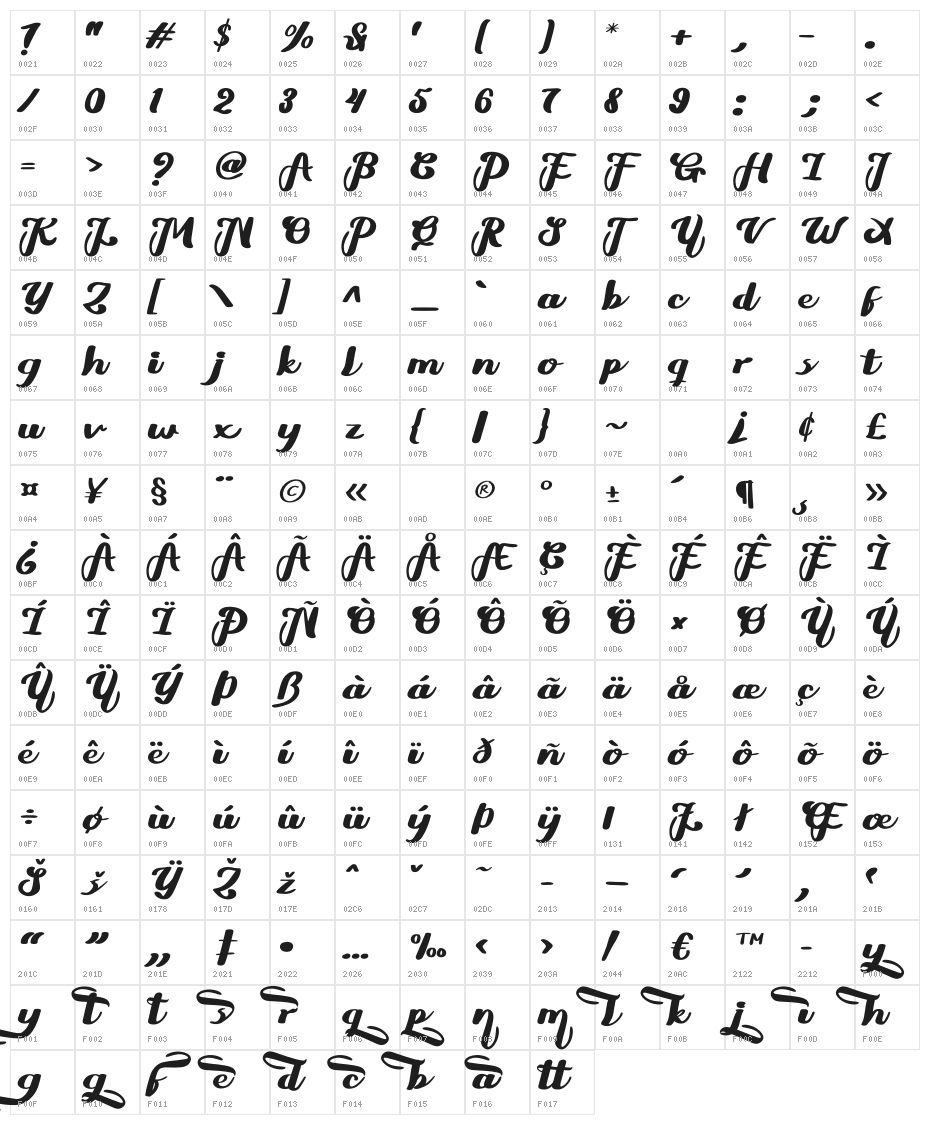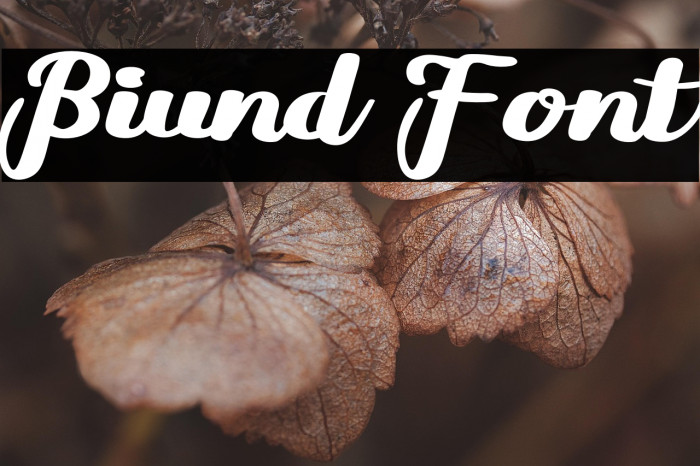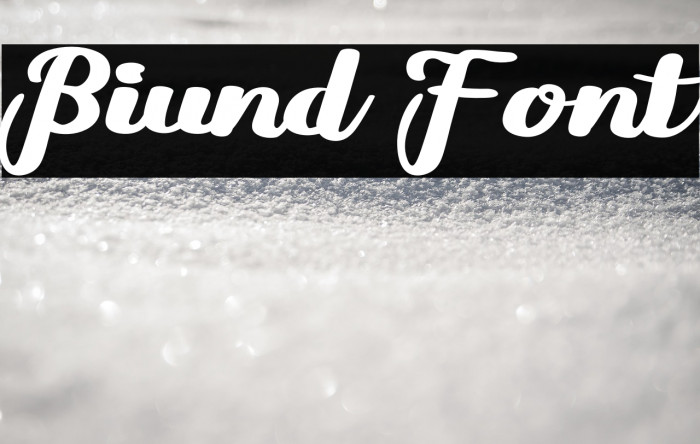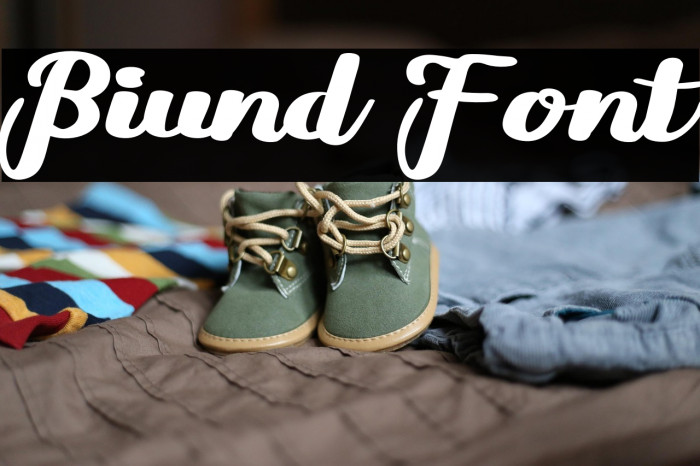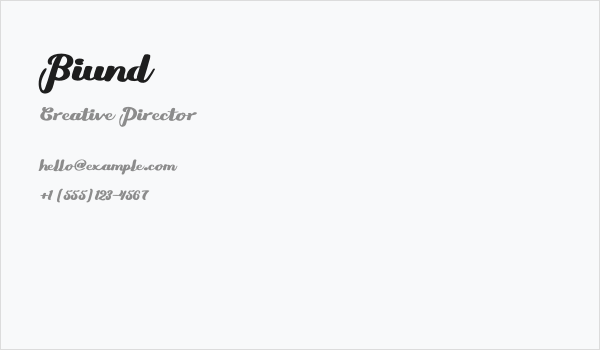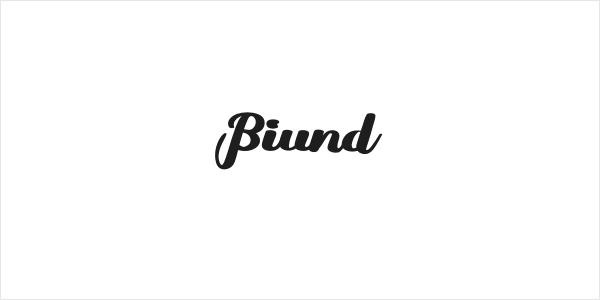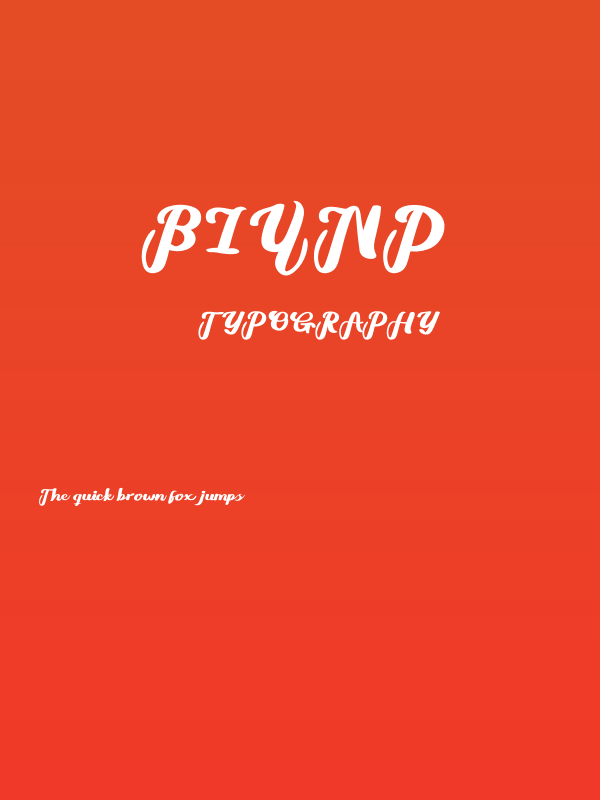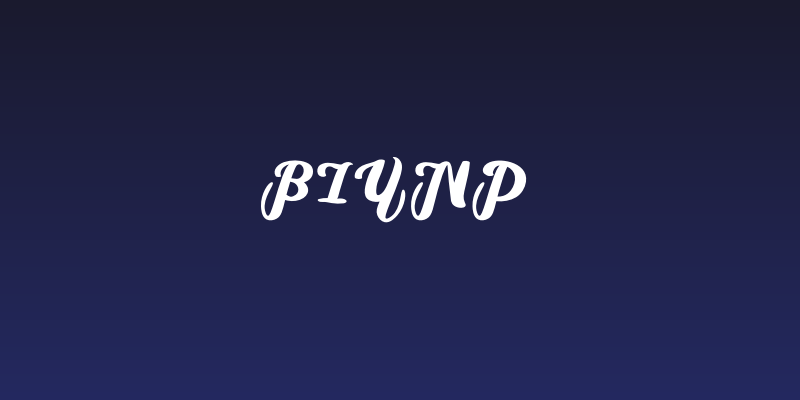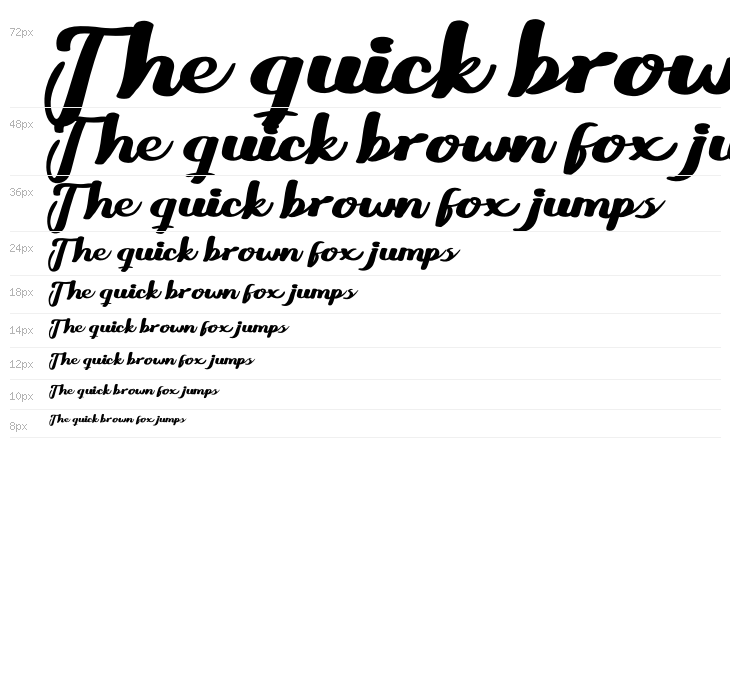
Biund Font
Biund Description
This font features a bold, cursive style with smooth, flowing lines and a playful, energetic feel. The characters are well-rounded and connected, giving a sense of movement and fluidity. The uppercase letters are slightly more elaborate, with decorative swashes and loops, while the lowercase letters maintain a consistent, harmonious appearance. The numbers and special characters are designed to match the overall aesthetic, ensuring a cohesive look across all text. This font's boldness and unique style make it stand out, perfect for creative and expressive projects.